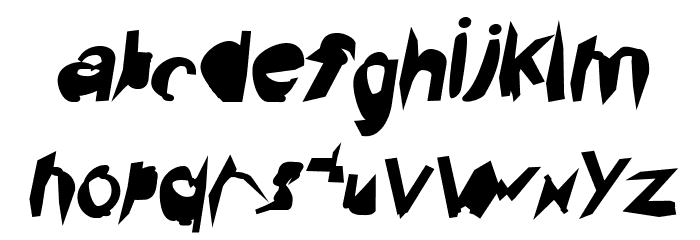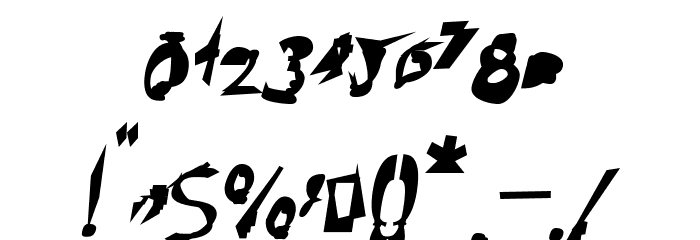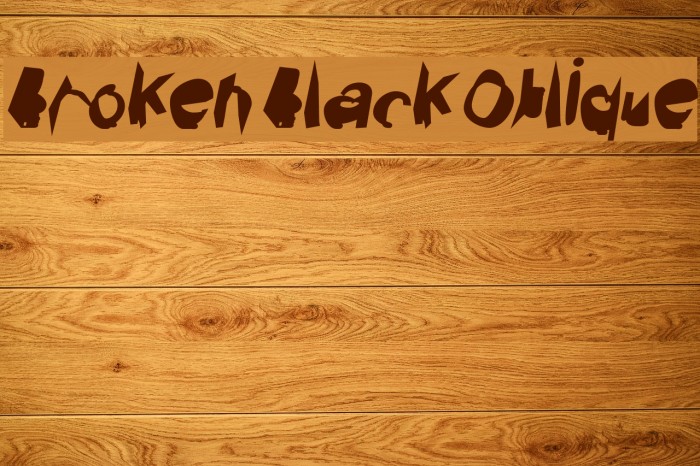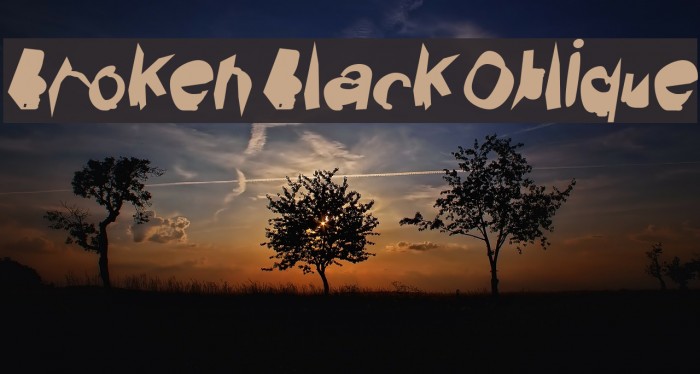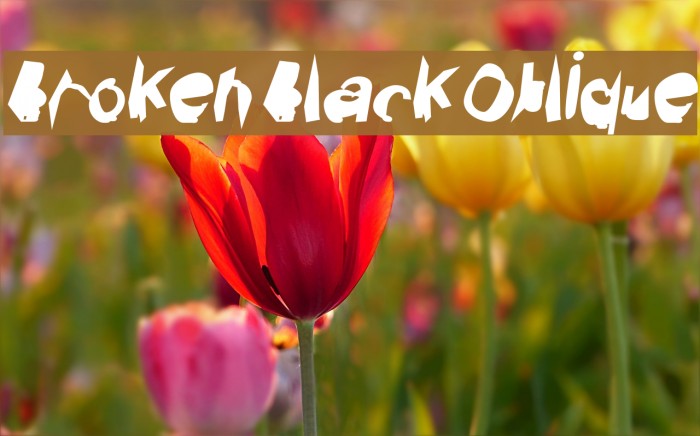
Broken Black Oblique Font
This font features a bold, dynamic style with sharp, angular edges and a distinct oblique slant. The characters are heavily stylized, with a fragmented appearance that gives a sense of movement and energy. The uppercase and lowercase letters maintain a consistent design theme, with exaggerated angles and a playful, chaotic feel. Numbers and special characters follow the same aesthetic, making the font cohesive and visually striking. The overall design is modern and unconventional, suitable for projects that require a bold statement.
A bold, angular, and oblique font with a fragmented, dynamic style.
- Proposed Projects: Ideal for edgy branding, album covers, posters, and any project needing a bold, artistic touch.